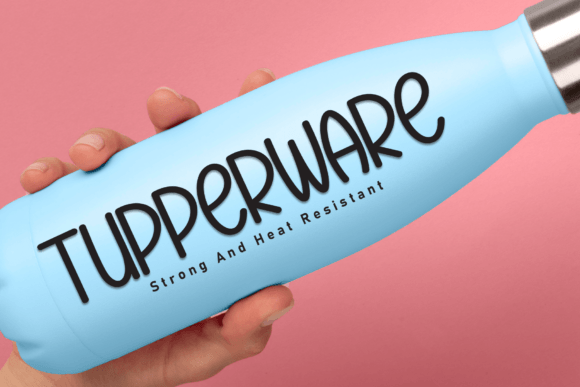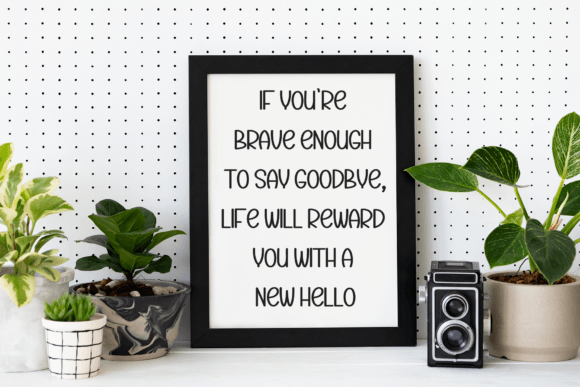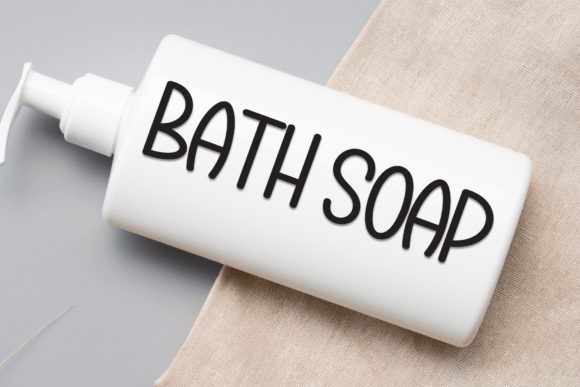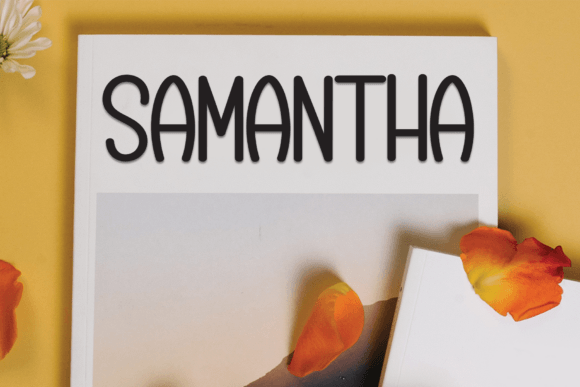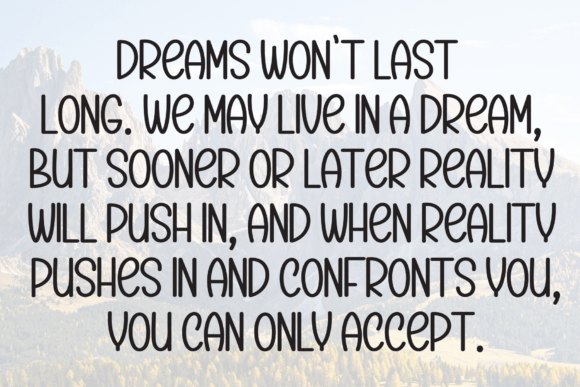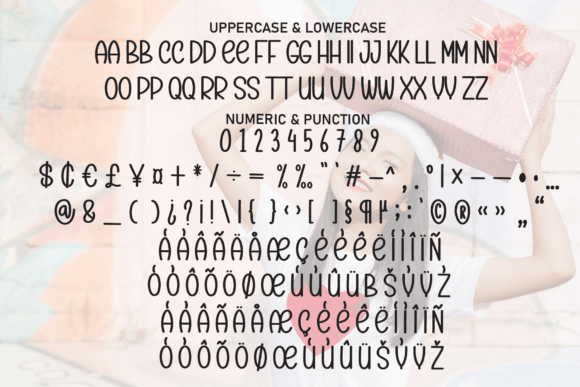
Discover the Delightful Darling Present Font: A Sweet Addition to Your Design Projects
Have you ever been in the midst of working on a design project, only to find that it’s missing that special something? I recall a particularly frustrating experience while designing a wedding invitation for a friend. The design was beautiful, but the font I was using just wasn’t capturing the playful, whimsical vibe of the couple’s personalities. That’s when I stumbled upon the Darling Present Font, and it completely transformed the project!
A Personal Review: What I Love About Darling Present Font
The Darling Present Font is a charming, handwritten display font that brings a sweet and friendly nuance to any design project. Here are some things I absolutely love about it:
- ✨ Adorable and lively design: This font is the perfect blend of sweet and playful, making it ideal for designs that require a cheerful touch.
- ✅ Perfect for whimsical designs: Whether it’s a wedding invitation, greeting card, or any other project that needs a dash of fun, Darling Present Font is an excellent choice.
- 🎉 Easy to read: Despite its playful nature, the font remains clear and easy to read, even in smaller sizes.
While I adore the Darling Present Font, there are a few minor quirks to be aware of:
- 🤔 Limited use in formal designs: Due to its playful nature, this font might not be the best fit for formal or professional designs.
- ⚠️ Some glyphs may require manual adjustment: Depending on the platform or software you’re using, you might need to manually adjust certain glyphs to ensure they fit perfectly with the rest of the text.
The Story Behind Darling Present Font
The Darling Present Font was created with the intention of capturing the essence of playful, whimsical designs. Its designer aimed to create a font that would bring a smile to people’s faces and add a touch of fun to their designs. With its adorable and lively design, Darling Present Font has become a popular choice among designers and crafters.
| Font Name | Darling Present Font |
| What type of designs is Darling Present Font best suited for? | Darling Present Font is perfect for whimsical designs, such as wedding invitations, greeting cards, and other projects that require a playful touch. |
| Is Darling Present Font easy to read? | Yes, despite its playful nature, Darling Present Font remains clear and easy to read, even in smaller sizes. |
| Does Darling Present Font come with OpenType features? | Yes, Darling Present Font features OpenType capabilities, including stylistic alternates and glyphs, which can be accessed in compatible software. |